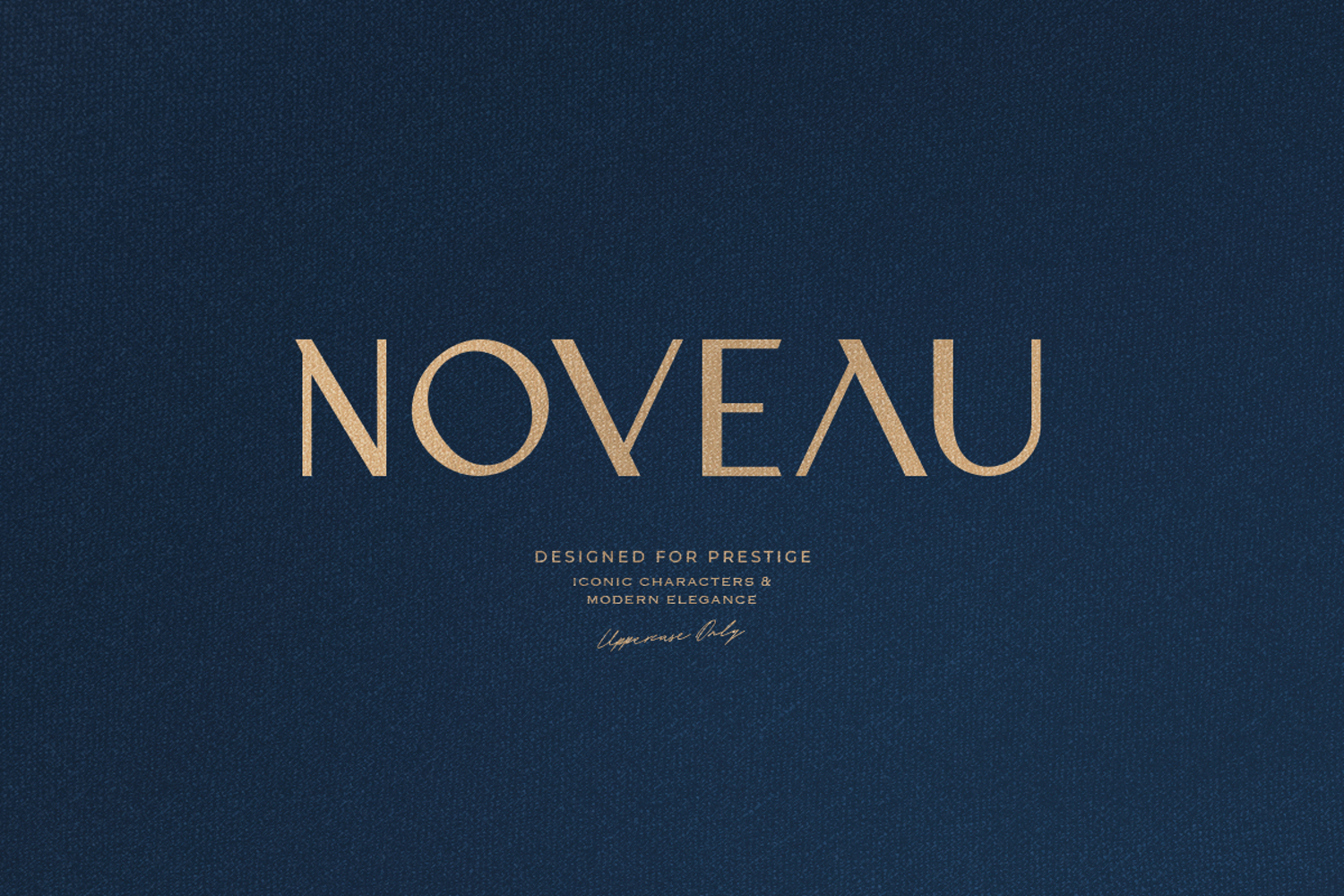
Noveau Prestige & Elegant
Noveau is a luxury uppercase typeface designed for prestige, iconic characters, and timeless elegance. Every letter is crafted with refined detail, making it the perfect choice for premium logos, fashion branding, and high-end editorial design.